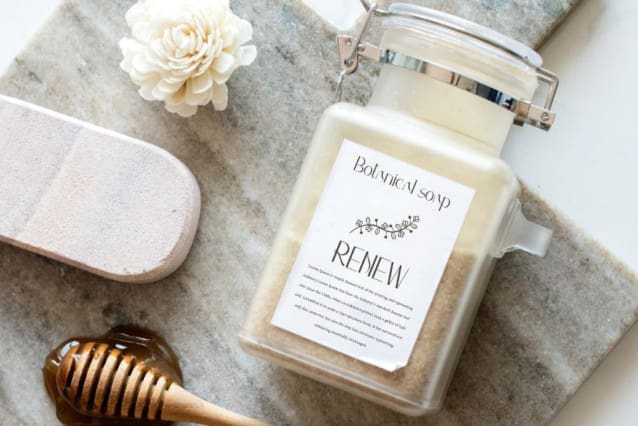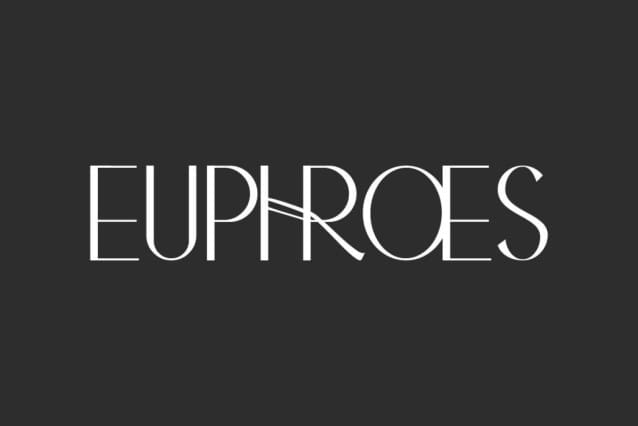
Euphroes Font
Euphroes Font is a gorgeous sans serif display font that looks simple yet stylish. Even though the lines on each letter are quite unique, this font still gives off a modern elegant impression. It will be suitable for many industries, such as accessories and jewelry, beauty product, event or wedding organizer, fashion, furniture, interior design, photography, printing, publishing, restaurant, spa and salon, etc.
Euphroes Font includes full set of Uppercase and Lowercase Basic Characters, Numerals, Punctuation, Symbol, and Ligature characters. This font can be combined with other font types or stand alone. It would be good for many ideas, such as brand logo, brochure, business card, invitation, label, menu, poster, product packaging, quote, screen printing, signage, website, and more!